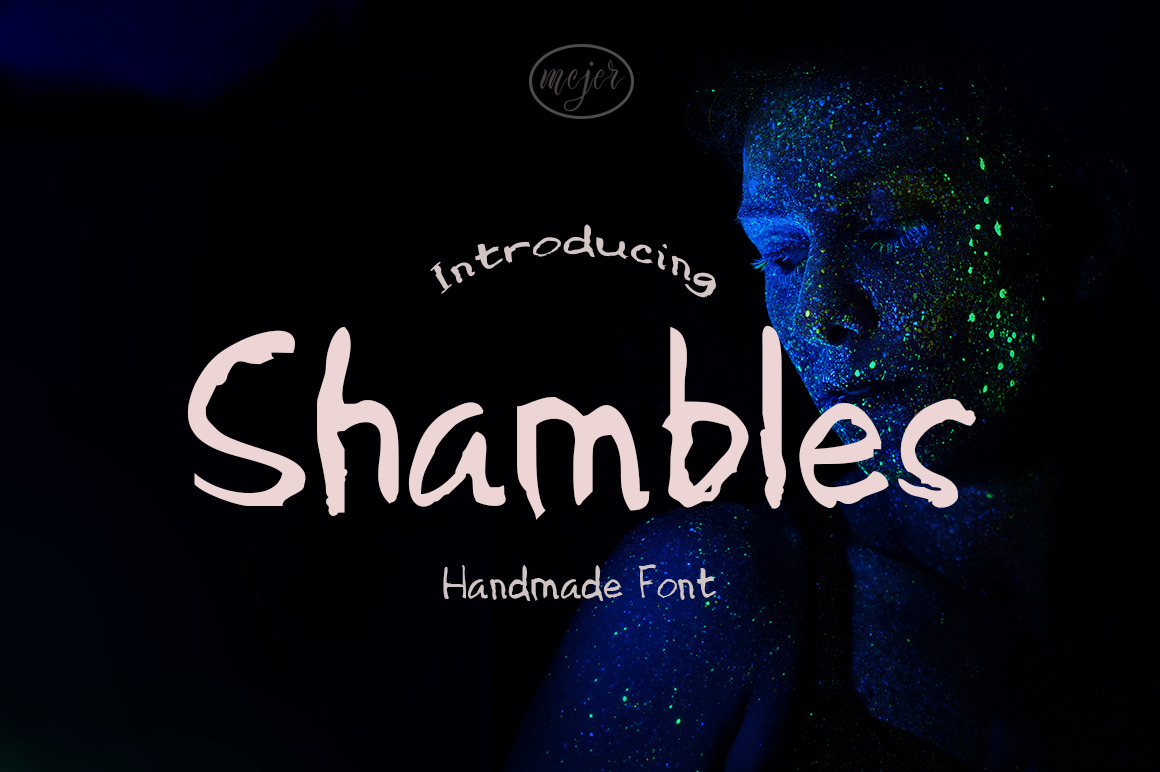
Shambles Handmade Font
Shambles Handmade Font is original create by mono type pen. Shambles name is inspiration from Fighting Stance of Trafagar Law in Onepiece Manga.
Shambles Perfect for branding, Logos, wall design, beautiful card, formal letter, Cover Tapes, DVD Cover ect. it's come with opentype, Ligature, number and punctuation. support windows and Mac (ttf and otf format)